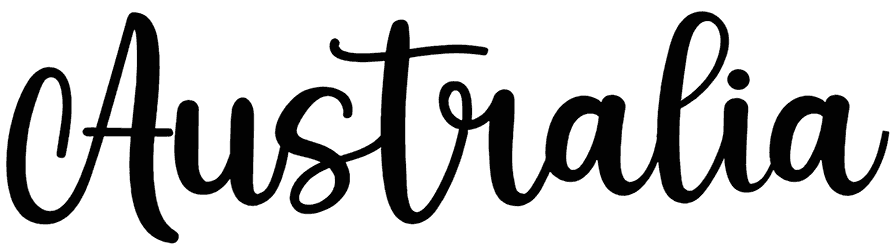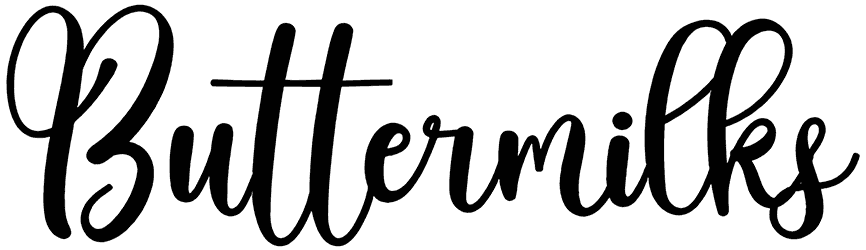
Bufally Font
Bufally is a specific retro-style old-school font that also has a cursive style, which makes it an excellent choice for wherever you would like to add a classy, engaging, and stunning look. The bold characters are stylish and elegant and they are brilliant if you would like a hand-drawn element.
Bufally includes a full set of letterforms, that are mixed-case alphabets, numbers, and punctuation. It’s best to select this font for places like texts, designs, brands, logos, and art projects.